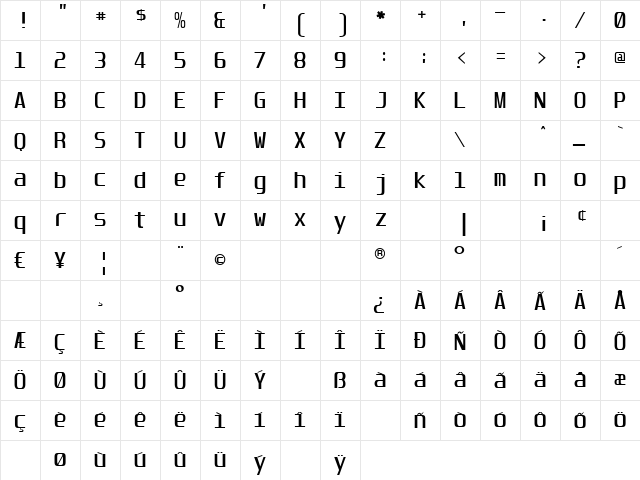
Unispace Regular
Design Context for Unispace Typeface
Unispace takes a measured approach to typography — its balanced proportions and neutral character make it a reliable workhorse for both digital and print work.
Pro Tip: Use Unispace in both headline and body roles to test its range before committing to a single application.